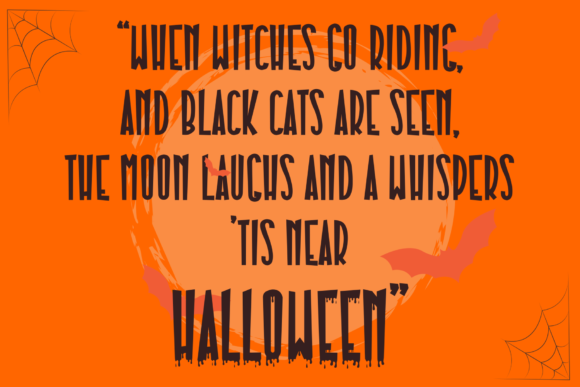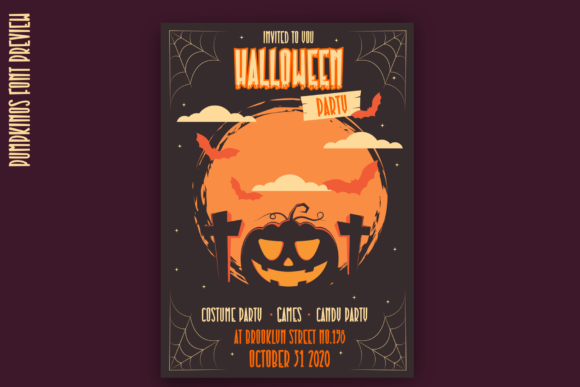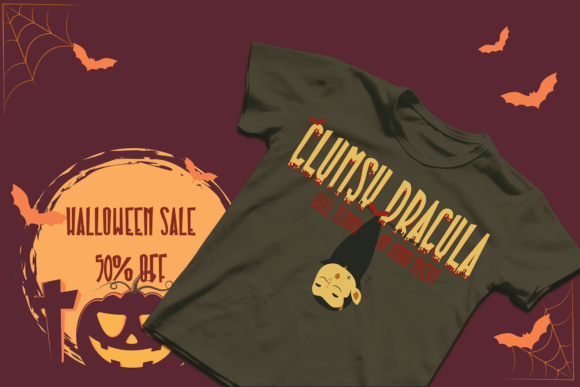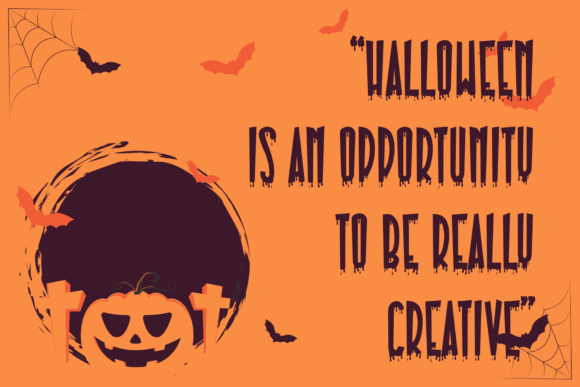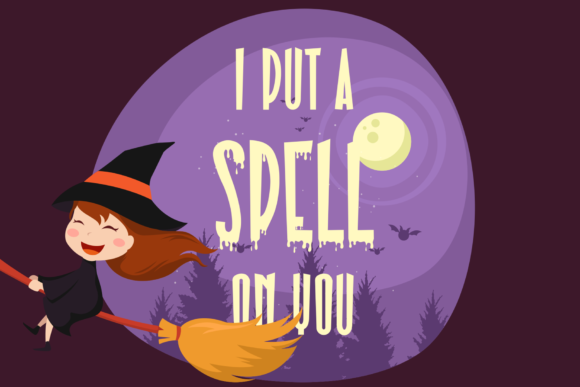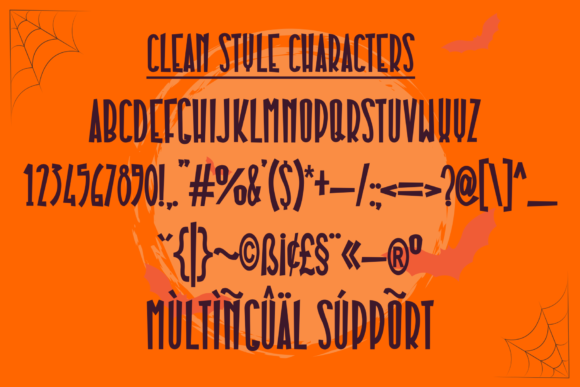
Introduction to Pumpkinos Font
As the leaves start to change and the air grows crisp, designers know that it’s time to get creative for Halloween. You’ve spent hours brainstorming the perfect idea, pouring your heart into every detail, and finally, you’re ready to bring it to life. But, there’s one crucial element that can make all the difference – the right font. That’s where Pumpkinos Font comes in – an incredibly unique horror display font that will add an eerie touch to your design.
With Pumpkinos Font, you’ll be able to create eye-catching posters, packaging, banners, and more that will leave a lasting impression on your audience. Whether you’re working on a free download or a high-quality design project, this font is sure to be a valuable addition to your design resource. Its transparent background makes it easy to integrate into any design, and its spooky vibe is perfect for any Halloween-themed creative project.
Key Features of Pumpkinos Font
- This high-quality font features a unique, hand-drawn design with intricate details and textures.
- Pumpkinos Font includes a transparent background, allowing for easy layering and customization.
- This font is ideal for creative projects that require a high level of detail and texture, such as book covers, posters, and packaging design.
Honest Review: Pumpkinos Font
I recently had the opportunity to try out the Pumpkinos Font, and I must say it’s been a game-changer for my creative projects. This free download has been a fantastic addition to my design resource library.
One of the things that works well about the Pumpkinos Font is its versatility. The high-quality design allows it to be used for a wide range of applications, from logos to posters. I’ve also found it to be incredibly easy to use, even with a transparent background, which is a major plus for me.
Some of the key features I’ve enjoyed with the Pumpkinos Font include:
- High-quality design that’s perfect for print or digital use
- Easy to use and customize for any project
Of course, no font is perfect, and the Pumpkinos Font has a few limitations. For example, the font is only available for personal use, which may be a drawback for some designers. Additionally, the font’s range of characters is somewhat limited.
Overall, I’m really impressed with the Pumpkinos Font. It’s a great addition to any designer’s library, and I’m excited to see how it will continue to grow and evolve. ✨
Experiment with different font sizes, colors, and combinations to get the most out of the Pumpkinos Font. You can also pair it with other design elements, such as images and graphics, to create visually appealing designs.
The Pumpkinos Font is commonly used in various creative projects, including holiday-themed designs, food blogs, and social media graphics. Its unique design and transparent background make it a popular design resource among designers and non-designers alike.